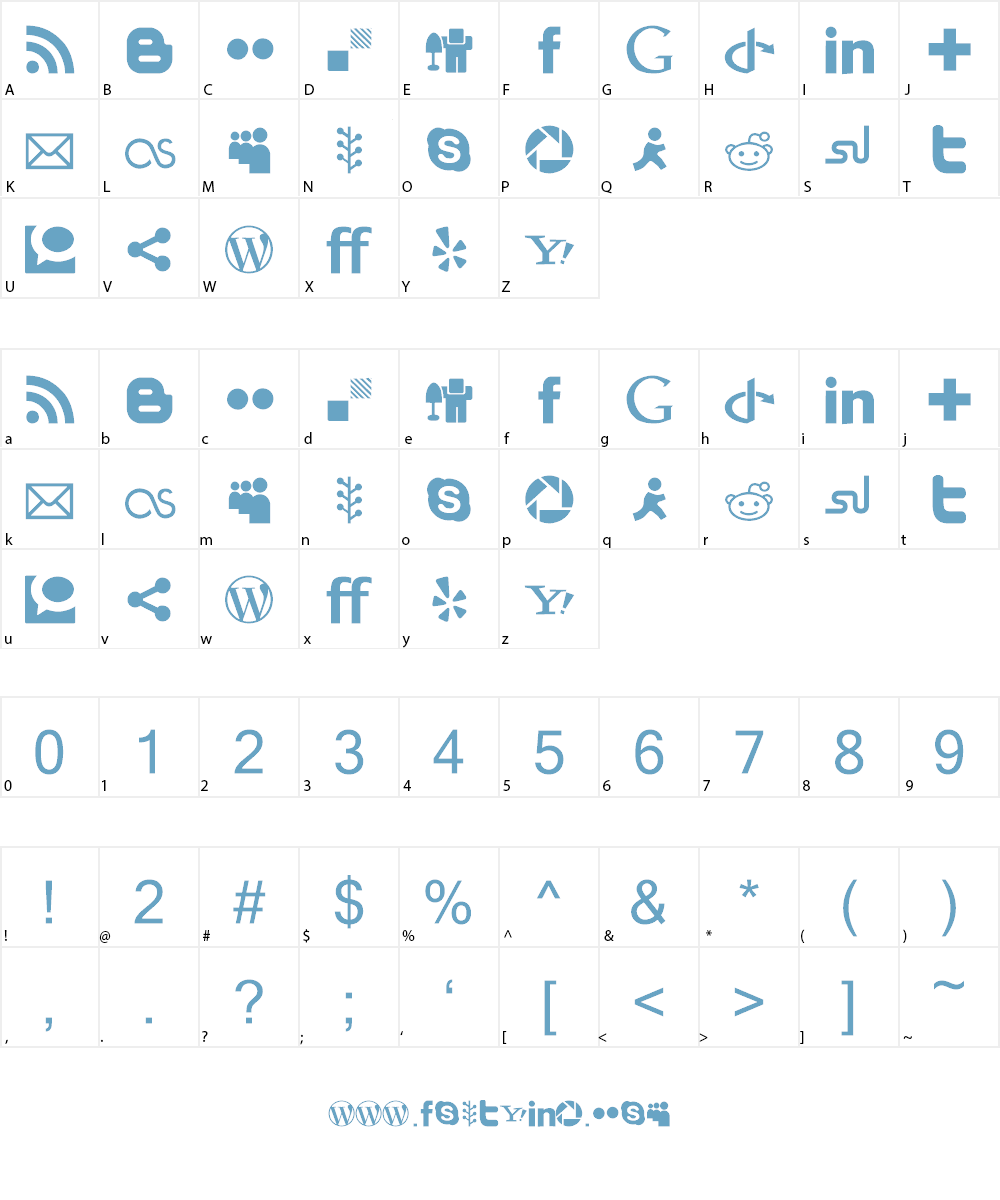
This is a set of 26 characters, mostly of icons for popular social networking sites. I created this both to make it easier to create image icon sets in programs such as Photoshop, as well as so one could embed this font into a web page and use CSS to make icon sets.